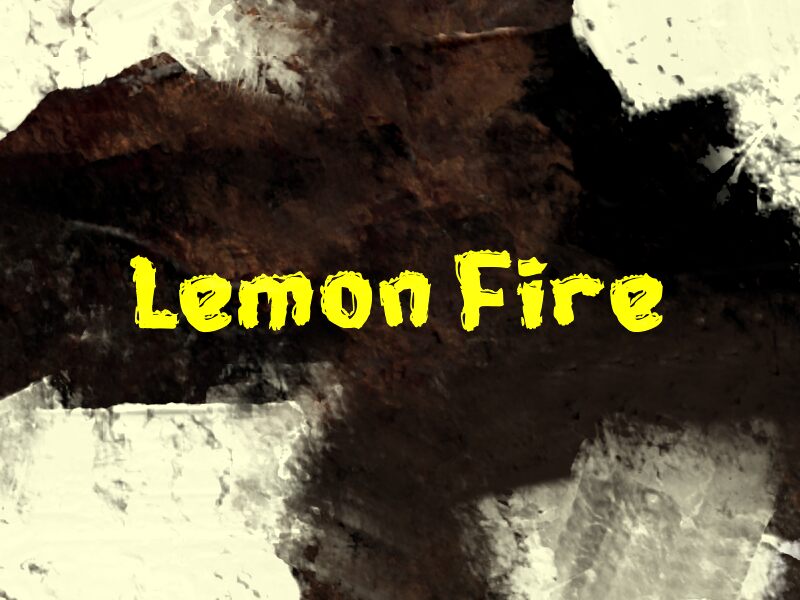
Lemon Fire
Lemon Fire font by wep is a free decorative display typeface that looks like letters torn from scorched paper and splashed with thick ink. The shapes are ragged, uneven, and slightly swollen at the edges, giving every word a smoky, chaotic energy as if it’s smoldering on the page. Despite the wild texture, the rhythm of the letters holds together, so short phrases stay bold, loud, and easy to catch at a glance.
Using Lemon Fire, this free font shines on horror posters, Halloween invitations, haunted house signage, rock or metal band graphics, game titles, and bold YouTube thumbnails. It works beautifully when set large and tight, letting the inky edges and burnt-looking gaps become the main visual effect. For balance, pair Lemon Fire with a clean, neutral sans serif for body text so the fiery lettering can handle all the drama.